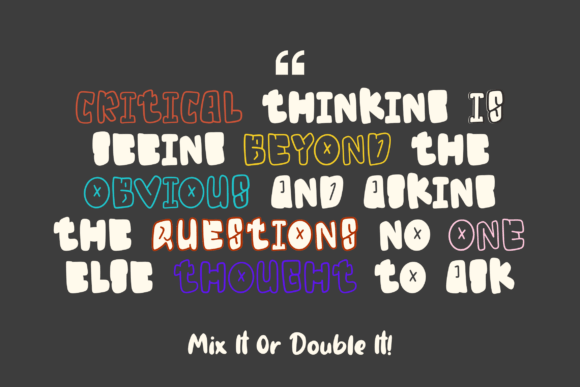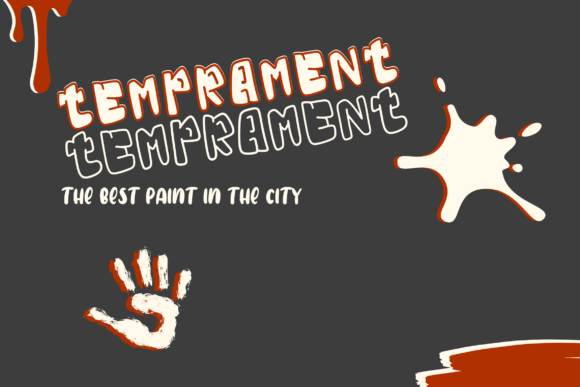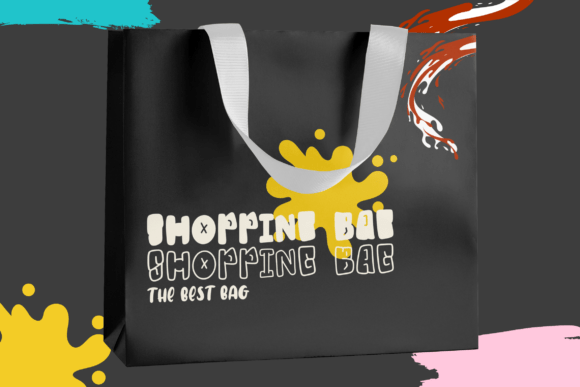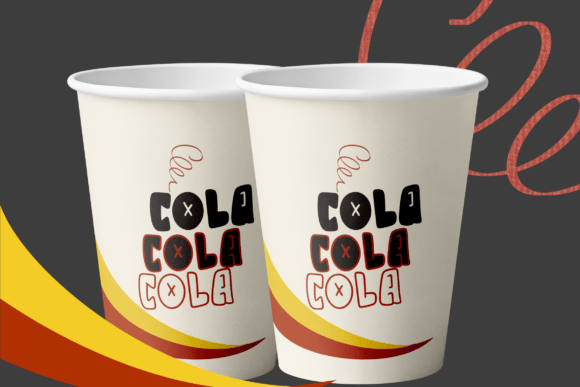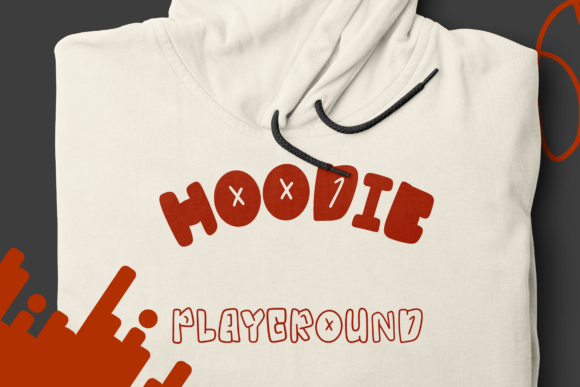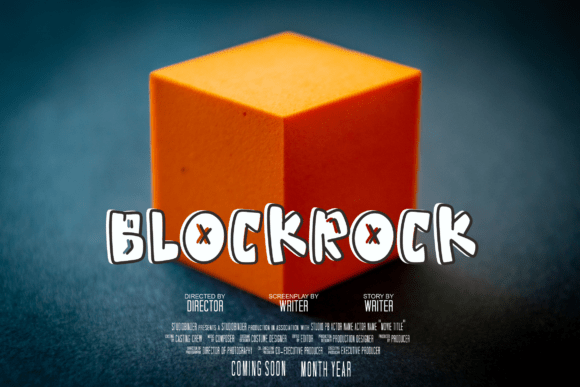
Introduction to Funky Hollow Font
Funky Hollow is a quirky and eye-catching display font that combines double-line outlines with playful mix-and-match styling.
Its bold and groovy look makes it perfect for retro-inspired designs, streetwear branding, posters, and creative packaging Whether you use it as a solid headline or layer the mixed style for vibrant effects, Funky Hollow brings funky personality and visual energy to your projects.